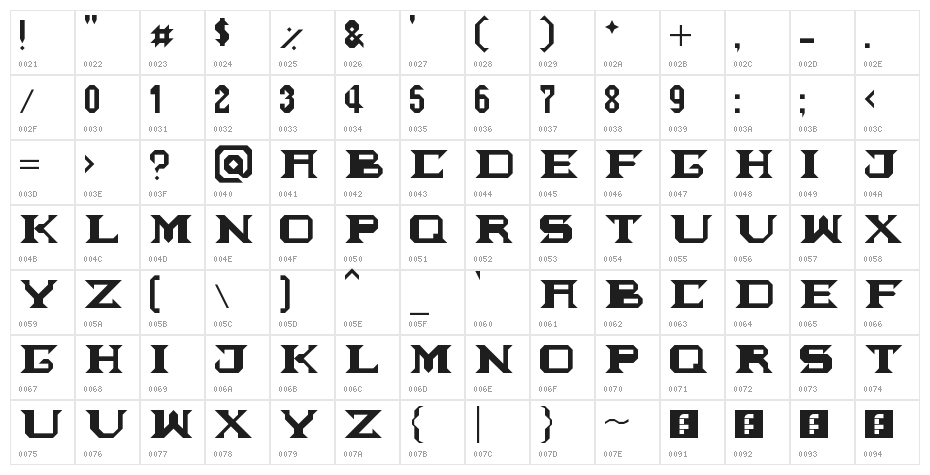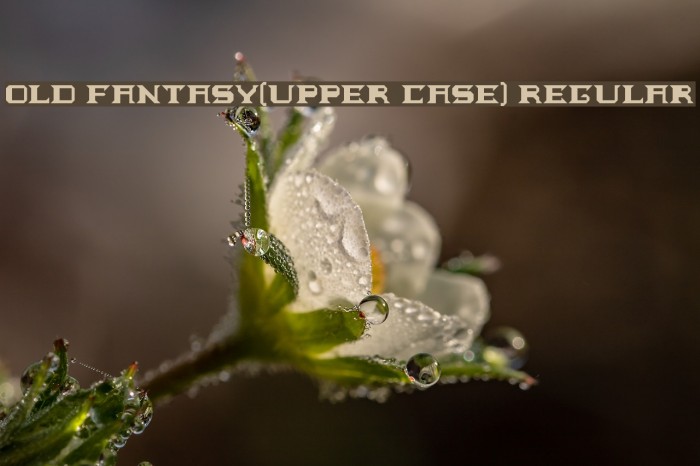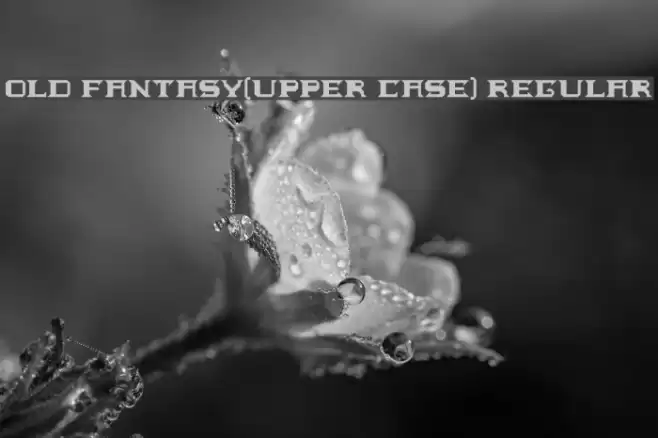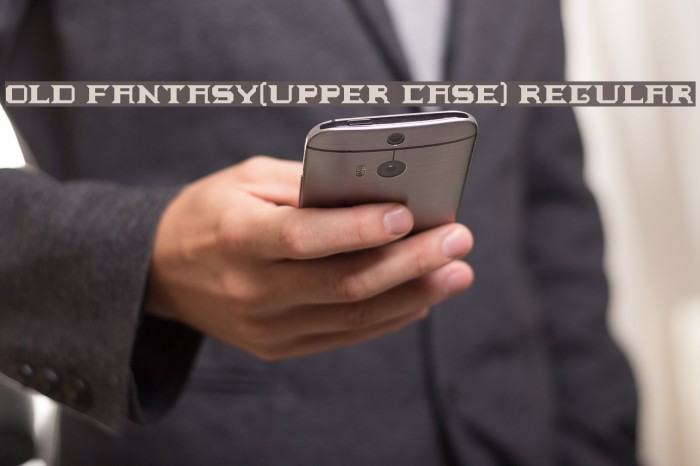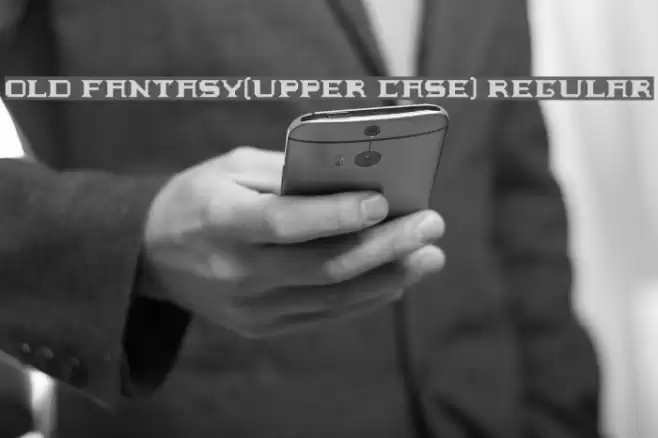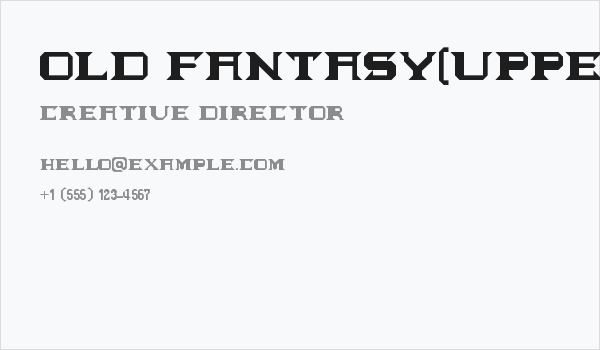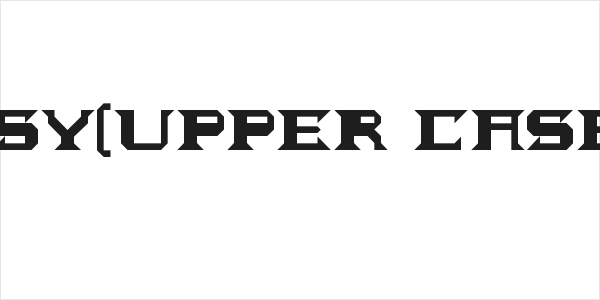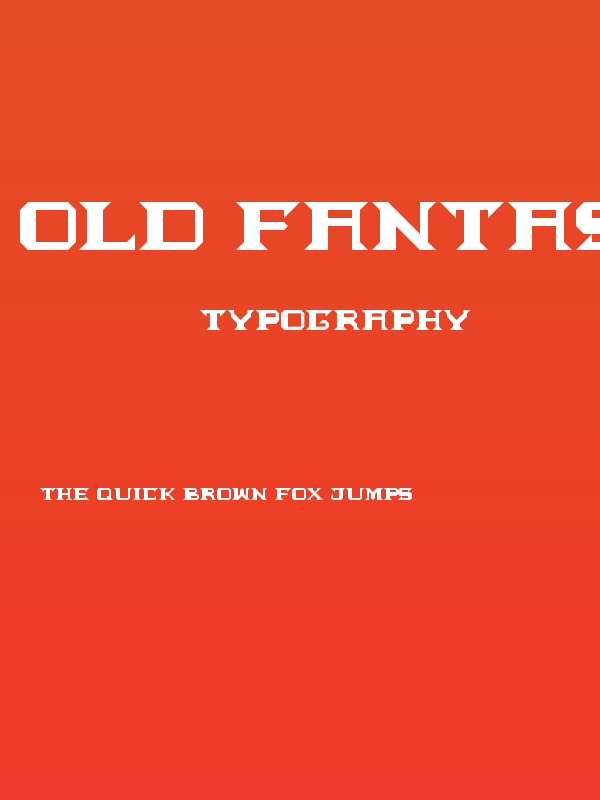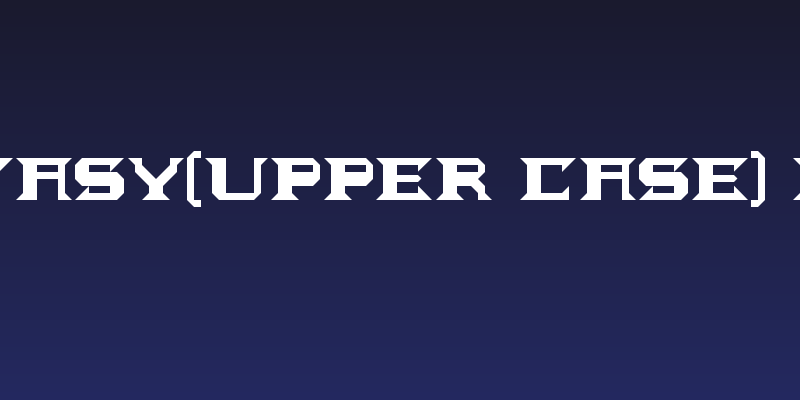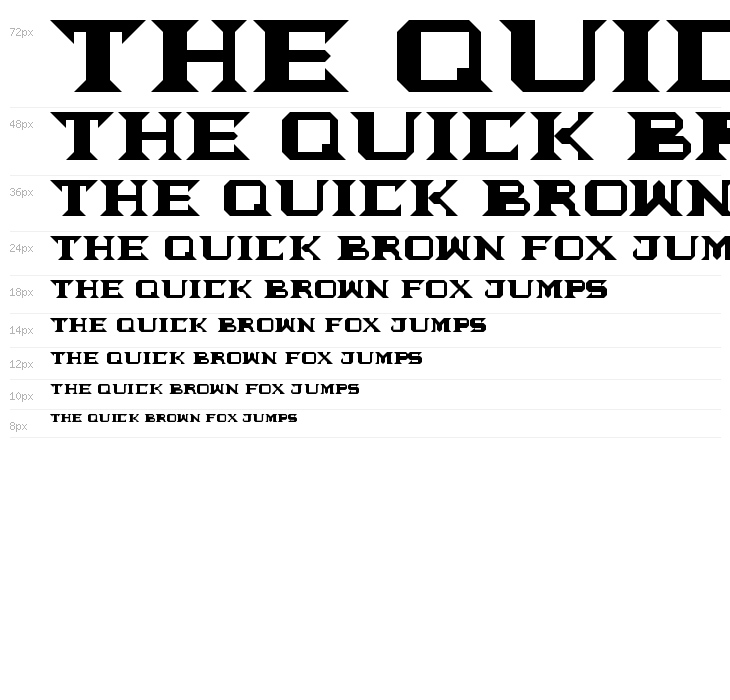
Old fantasy[upper case] Regular Font
Old fantasy[upper case] Regular Description
This font features a bold and striking design with sharp, angular edges that evoke a sense of fantasy and adventure. The uppercase letters are crafted with a unique geometric style, giving them a strong and commanding presence. The numerals and special characters maintain this bold aesthetic, ensuring consistency across all glyphs. The font's design is reminiscent of medieval or fantasy themes, making it ideal for projects that require a dramatic and impactful typeface. Its distinct style is perfect for capturing attention and conveying a sense of strength and mystery.
| Overall Style | Fantasy, Decorative |
| Proposed Projects | Ideal for fantasy-themed posters, video game titles, book covers, and branding that requires a dramatic and adventurous look. |